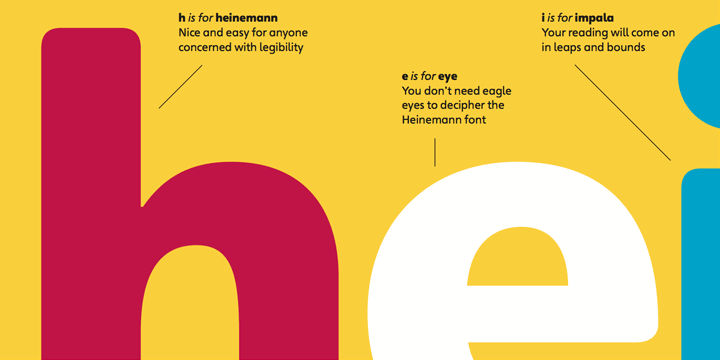
Heinemann Special Free Download
Heinemann Special Font Free Download
Heinemann Special Font is perfect for distinguished academic publishing, prestigious literary magazines, scholarly journal covers, exclusive university press materials, refined book publishing layouts, intellectual conference presentations, cultural heritage publications, sophisticated editorial designs, classical literature reproductions, and elite educational institution branding. Its distinguished academic character makes it ideal for projects requiring scholarly prestige and intellectual authenticity.
What makes Heinemann Special Font exciting is its exceptional embodiment of academic distinction and scholarly excellence with refined letterforms and intellectual characteristics that capture the essence of prestigious education and literary sophistication. The font features classical proportions, academic-inspired details, and distinguished character construction that create authentic scholarly atmosphere and intellectual appeal. Its prestigious personality brings authority and refinement to contemporary designs while maintaining the readability essential for academic communications and scholarly presentations. The carefully crafted distinguished elements ensure academic credibility while preserving the distinctive character that embodies the essence of intellectual excellence and scholarly prestige.
Heinemann Special Font comes in multiple scholarly variations including Light, Regular, Medium, Bold, and Academic styles. Each family member maintains the distinctive intellectual character while offering comprehensive flexibility for academic typography and scholarly brand system development. The complete font family includes classical ligatures, academic symbols, and distinguished decorative elements that provide extensive tools for creating immersive scholarly design experiences and authentic academic brand storytelling.
Whether you're developing academic institutions, scholarly publications, or intellectual heritage projects, Heinemann Special Font Free Download provides the distinguished prestige needed to communicate with academic audiences and intellectual communities who appreciate scholarly excellence and educational authenticity. The font's academic appeal resonates with professors, researchers, and educational professionals seeking authentic scholarly credibility and intellectual sophistication. Its comprehensive character set includes academic symbols and scholarly marks, making it perfect for creating complete intellectual brand systems and memorable academic storytelling across diverse educational applications and prestige-focused design projects that celebrate scholarly achievement and academic excellence.